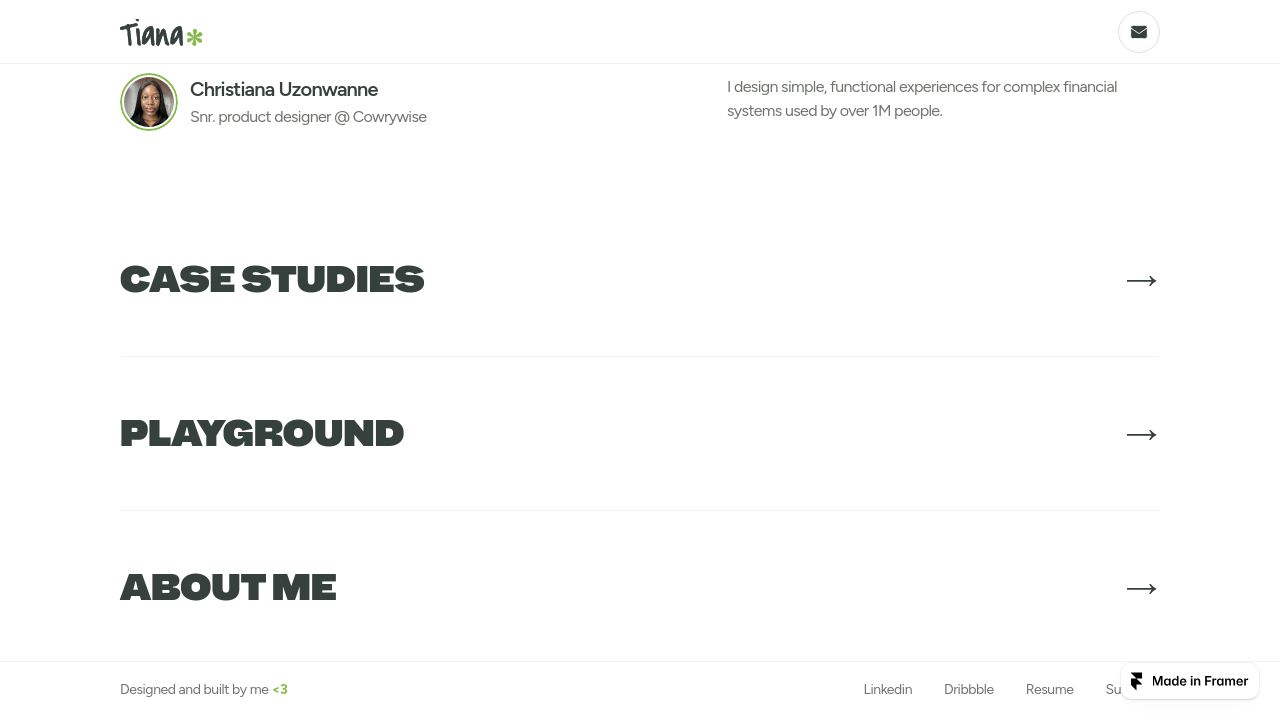
hellotiana.framer.website: What fonts does Hellotiana use? - Figtree, BBH Hegarty, Inter
What fonts does Hellotiana use?
Hellotiana.framer.website uses Figtree, BBH Hegarty, Inter, Covered By Your Grace and Coming Soon as its main typefaces. 8 fonts detected, last checked May 5, 2026.
At hellotiana.framer.website, Christiana Uzonwanne showcases her expertise as a senior product designer through carefully selected typography. The site employs primary fonts like Inter and Figtree, which enhance readability and accessibility. The use of these fonts, along with BBH Hegarty and Covered By Your Grace, reflects a commitment to clarity and user-centric design, appealing to both clients and fellow designers in the product design industry.
Frequently asked questions about Hellotiana.framer.website's fonts
What fonts does Hellotiana.framer.website use?
Hellotiana.framer.website uses Figtree, BBH Hegarty, Inter, Covered By Your Grace and Coming Soon as its main typefaces. 8 fonts detected, last checked May 5, 2026.
What fonts are used on hellotiana.framer.website?
The primary fonts on hellotiana.framer.website include Inter, Figtree, BBH Hegarty, and Covered By Your Grace, all in various weights.
How do the fonts on hellotiana.framer.website compare to other fonts?
Inter and Figtree are designed for readability on screens, making them suitable alternatives to other sans-serif fonts like Arial or Helvetica.
What styles and weights are available for the fonts used?
The fonts used on hellotiana.framer.website are primarily in weight 400, providing a consistent and legible appearance throughout the site.